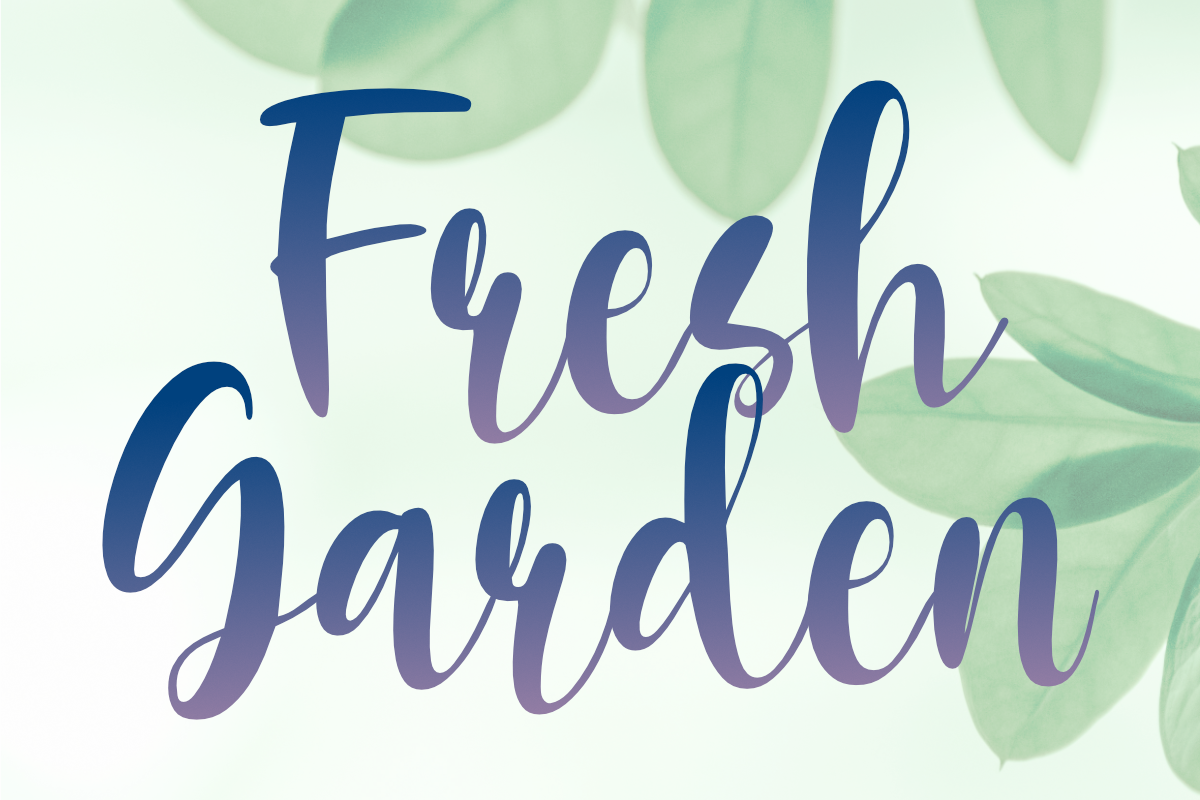
Fresh Garden Script Font
Fresh Garden is an elegant, cursive font. It's a great fit for any project you have in mind! Use it as your wedding invitation text or to create a logo design with a feminine touch. Whether you're taking on a fun project or tackling something serious the script font will always please and soothe your senses.
- Basic Latin Uppercase and Lowercase
- Numbers, symbols, and punctuations
- Multilingual Support.